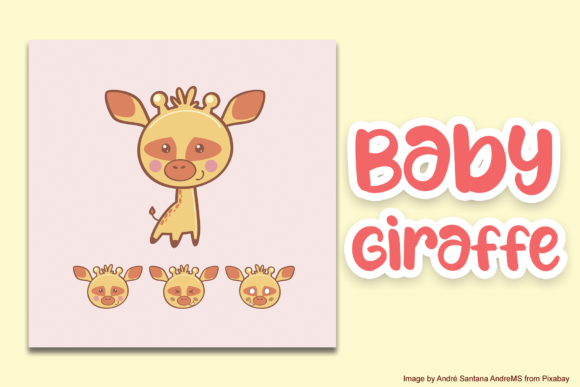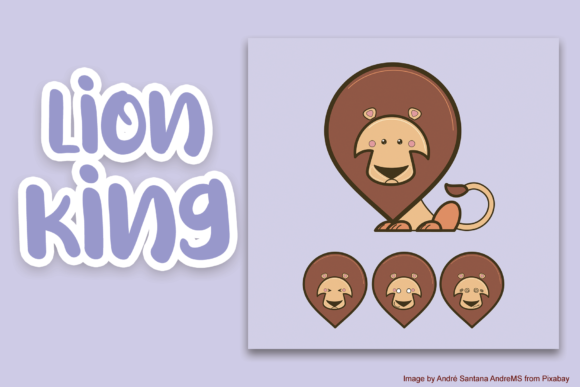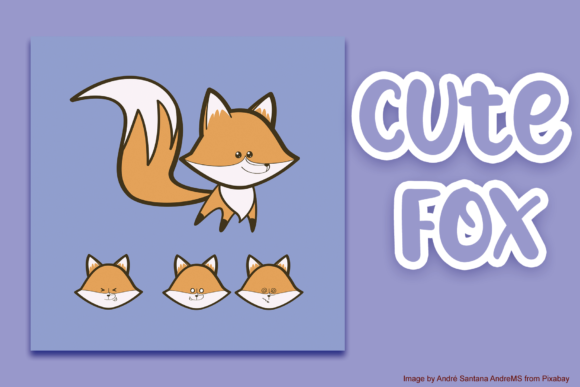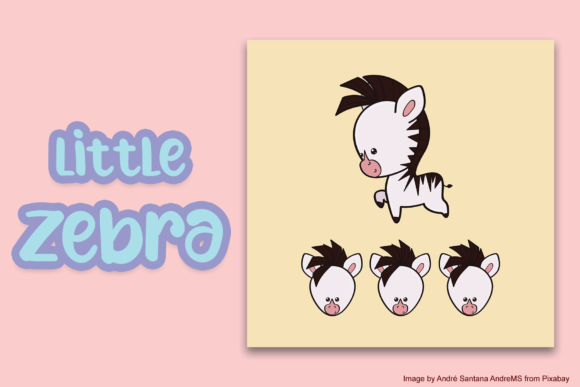
Unleash Your Inner Child with the Bunny Bear Font
Have you ever stared at a blank page, feeling like your creativity is stuck in neutral? For designers, this moment can be frustrating, but it can also be a spark for something amazing. What if you could tap into your inner child and bring a little whimsy to your next project?
That’s where the Bunny Bear Font comes in – a delightful, handwritten font that’s perfect for adding a touch of playfulness to kids’ projects, school assignments, or even marketing materials. This charming font is designed to bring a smile to your face and inspire your creativity. Whether you’re a seasoned designer or just starting out, the Bunny Bear Font is a valuable tool for adding a personal touch to your work.
Bunny Bear Font Key Features
- Size: 1,000 glyphs (includes uppercase and lowercase letters, numbers, punctuation, and special characters)
- Resolution: Supports high-resolution displays (up to 4K)
- Unique Characteristics: Whimsical, hand-drawn design with a mix of bold and delicate lines, creating a playful yet sophisticated look
- Language Support: Multi-language support, including Latin, Cyrillic, and Greek scripts
- Font Weight: 5 font weights available, ranging from Light to Extra Bold
Bunny Bear Font Review
I recently had the chance to work with the Bunny Bear font, and I’m excited to share my honest review with you.
- The playful and whimsical feel of the font is perfect for projects that require a touch of cuteness.
- The Bunny Bear font comes in a range of weights and styles, making it easy to find the perfect fit for your design.
- The font is highly customizable, allowing you to adjust the spacing, kerning, and more to suit your needs.
- The font may not be suitable for professional or formal projects, as it can come across as too playful or juvenile.
- The font’s high x-height can make it difficult to read in certain contexts, such as in small text or at high resolutions.
Overall, I think the Bunny Bear font is a great choice for projects that require a lighthearted and playful touch. While it may not be suitable for all projects, it’s definitely worth considering for those that need a fun and whimsical feel. With a little creativity and customization, the Bunny Bear font can add a lot of personality to your designs.
For the best results, use the Bunny Bear Font for playful and whimsical designs. Combine it with colorful graphics and illustrations to create a fun and engaging visual identity.
The Bunny Bear Font is perfect for:
– Children’s book covers
– Party invitations
– Branding for kids’ businesses or services
Alternatives to Bunny Bear Font
Great Vibes Font is a beautiful, handwritten script font that is perfect for adding a touch of elegance and sophistication to your designs. It’s ideal for use in wedding invitations, greeting cards, and other creative projects. Great Vibes Font has a more refined and polished look compared to Bunny Bear Font, which is more playful and childlike.
Lobster Font is a fun and casual script font that is great for use in casual designs, such as restaurant menus, event flyers, and social media graphics. It’s similar to Bunny Bear Font in its playful and carefree vibe, but has a more rugged and edgy feel.
Crimson Text Font is a serif font with a elegant and sophisticated look, making it perfect for use in corporate designs, such as business cards, brochures, and reports. It’s a more formal and professional font compared to Bunny Bear Font, which is more playful and informal.
Pacifico Font is a beautiful, elegant script font that is perfect for use in creative and artistic designs, such as book covers, magazine headlines, and website headers. It has a more refined and polished look compared to Bunny Bear Font, with a focus on elegance and sophistication.